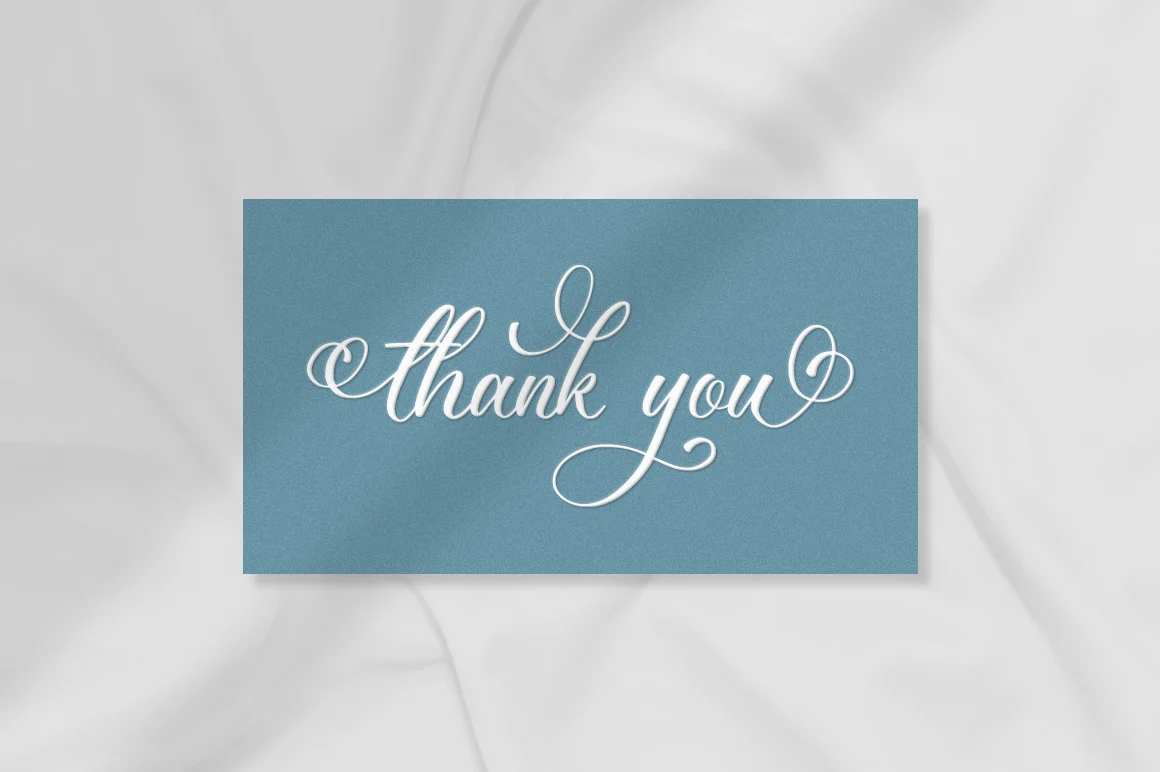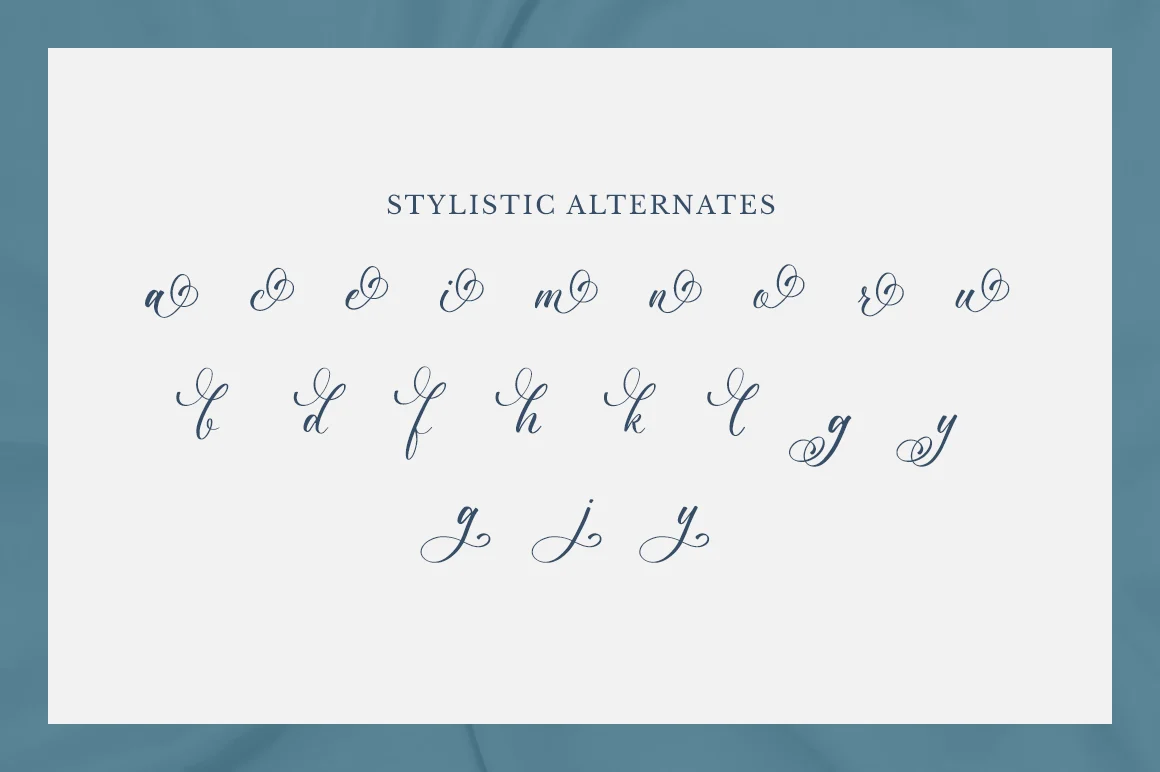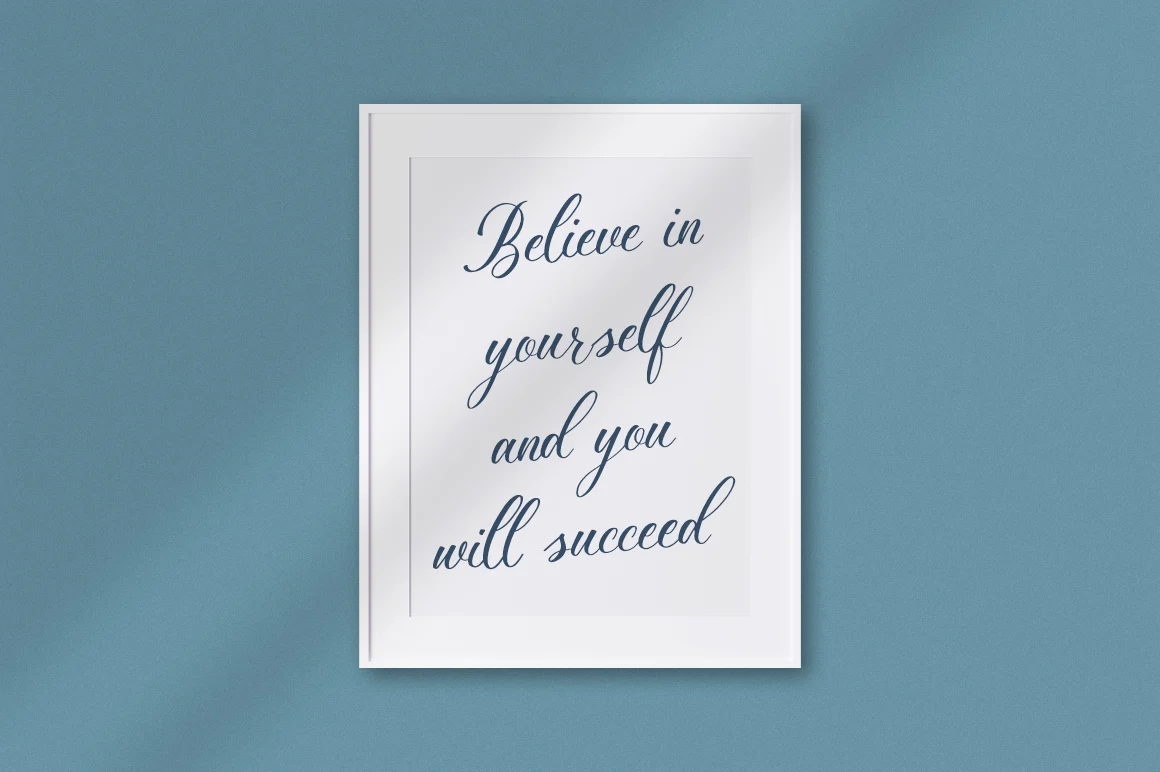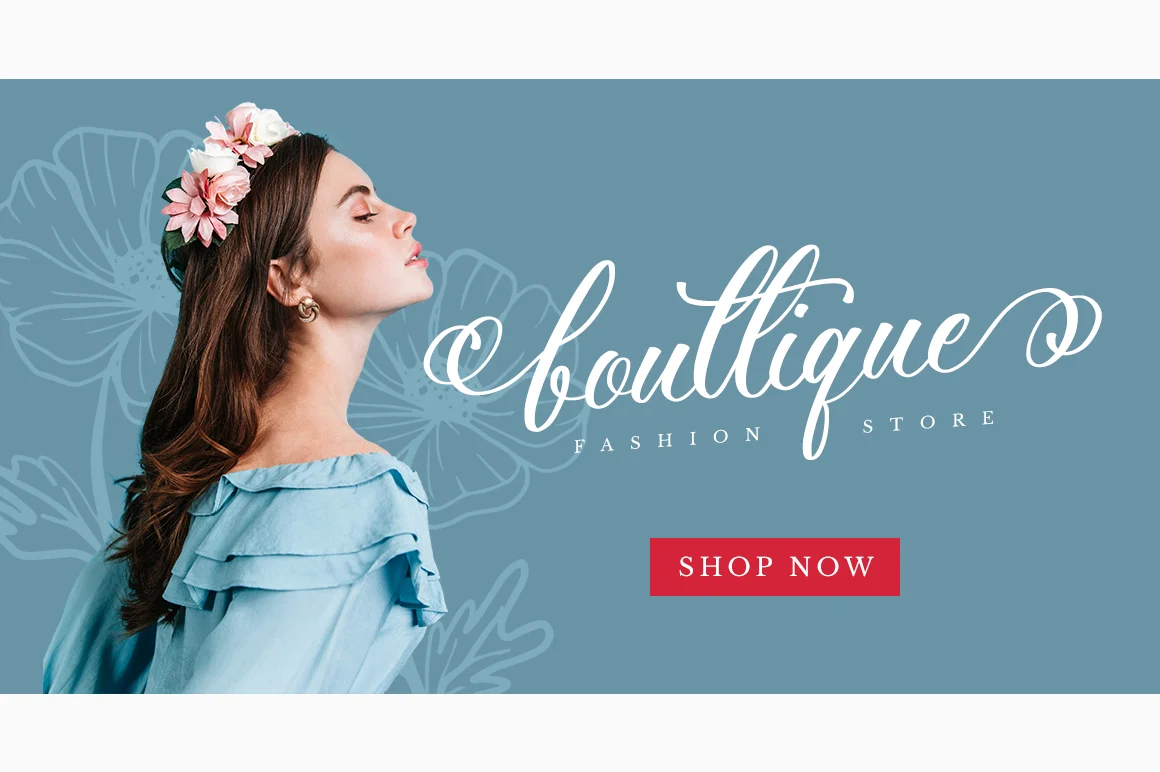
Shineblue – Romantic Calligraphy Font
Shineblue is a beautiful light handwritten font with a unique feel and a stunning impact. It will add a luxury spark to any design project that you wish to create! This font was particularly crafted for those who need a beautiful and refreshing look to their designs.